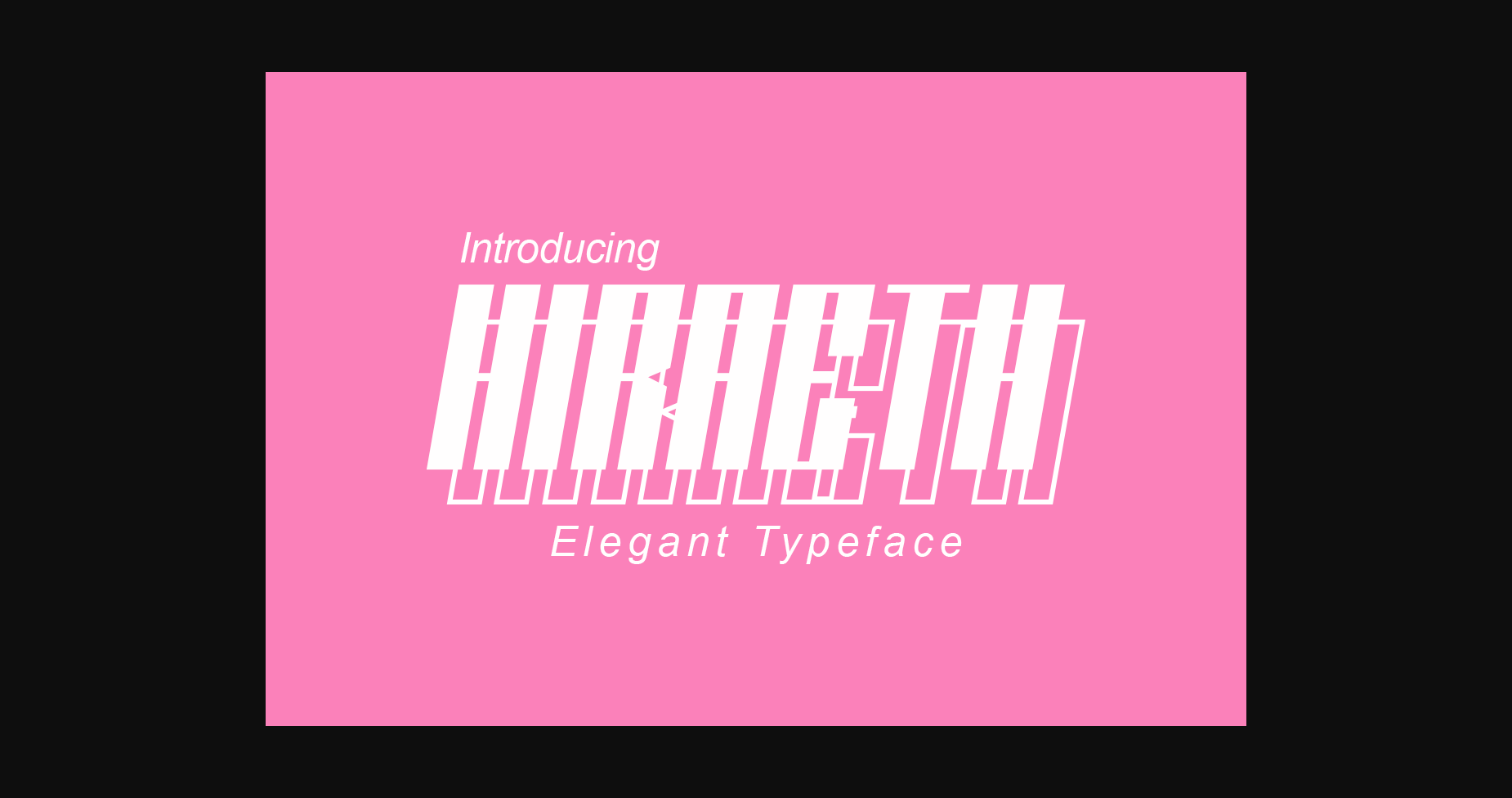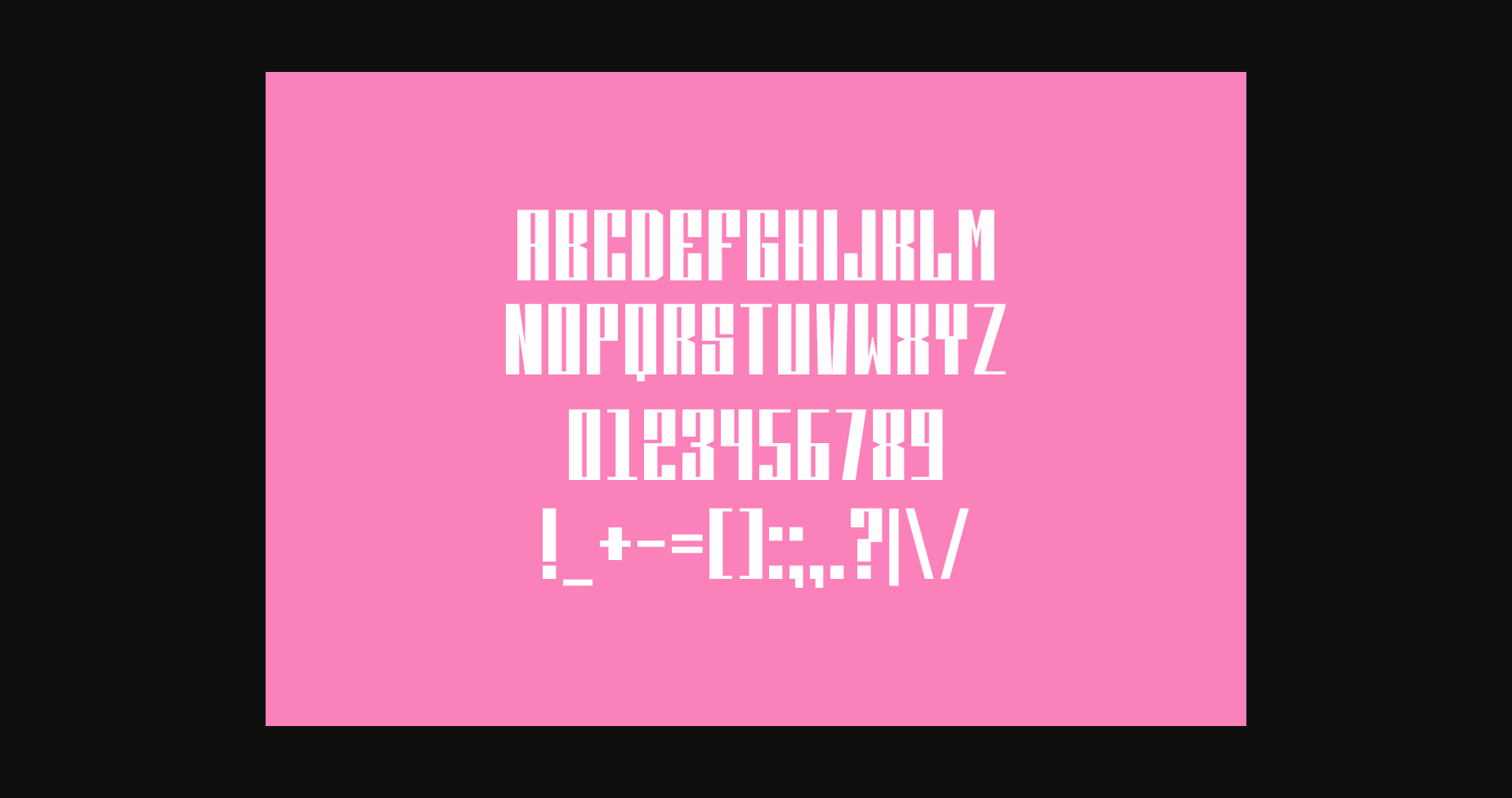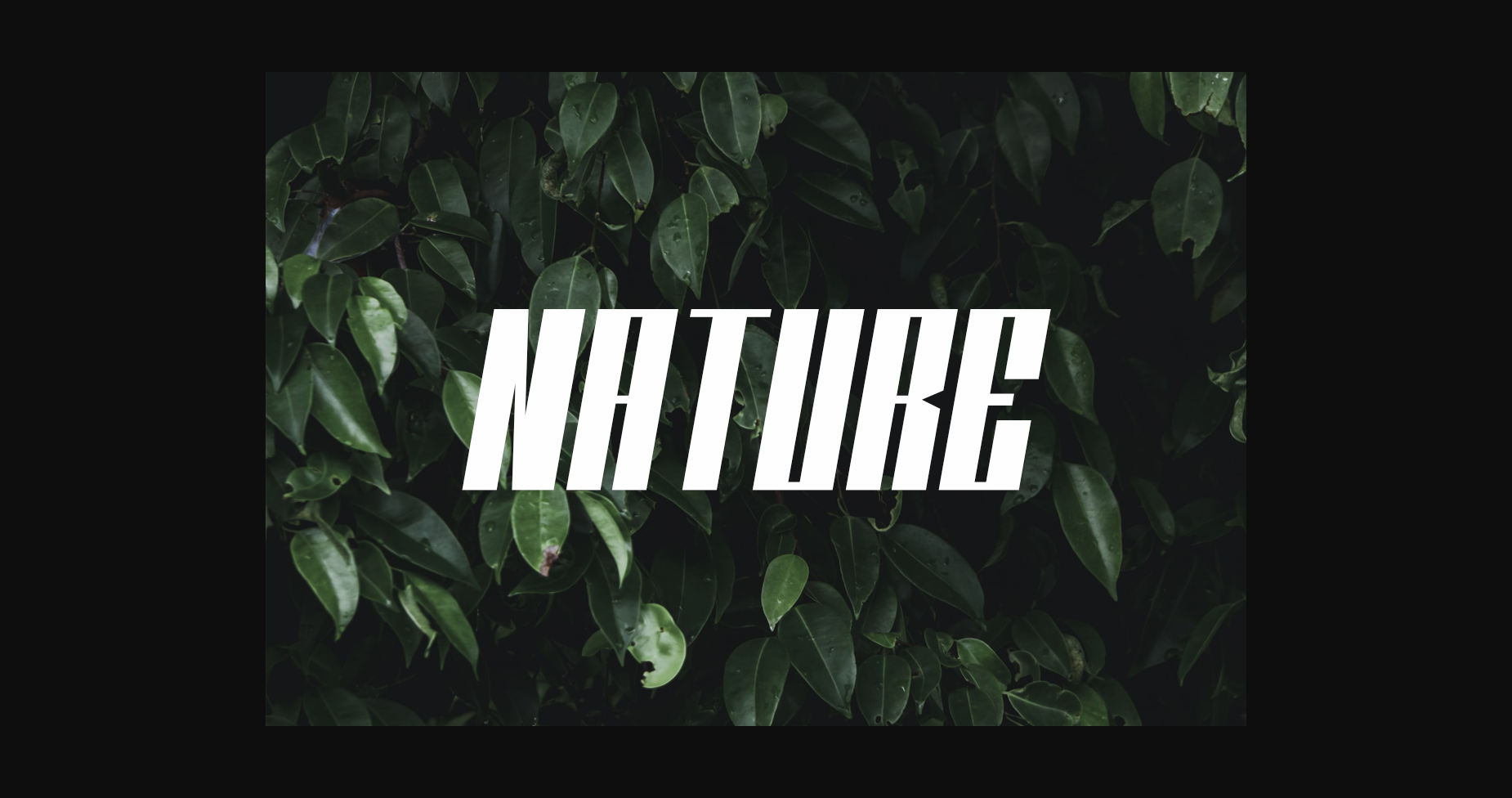
About Hiraeth Font
Hiraeth is a minimal and clean sans serif font. It can easily be matched to a huge set of projects, so add it to your creative ideas and notice how it makes them stand out!